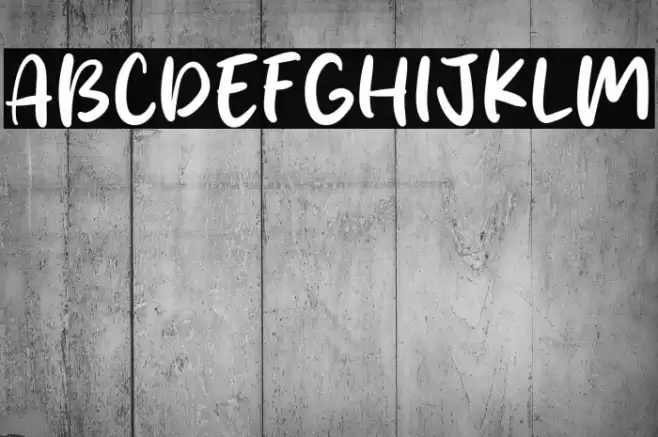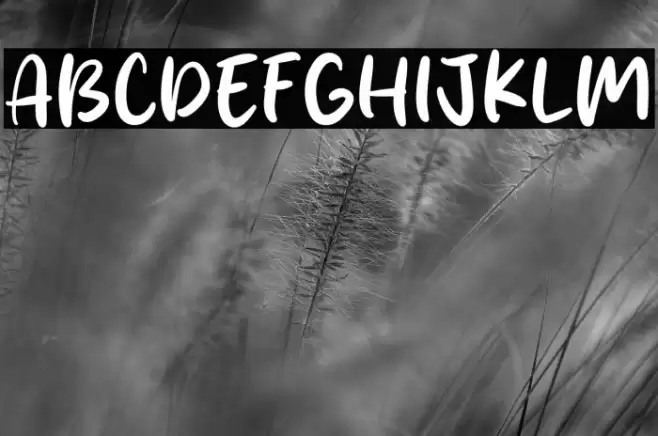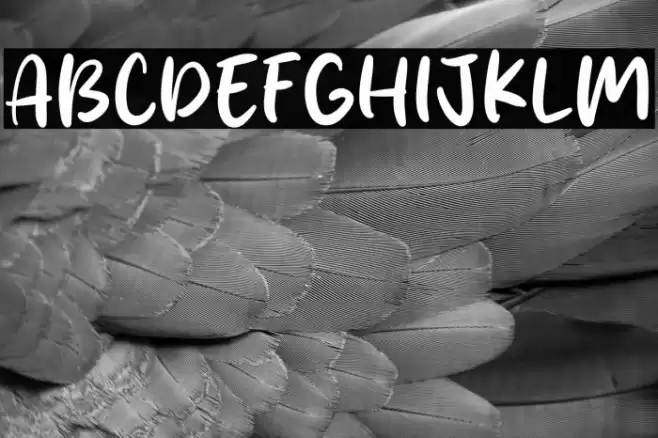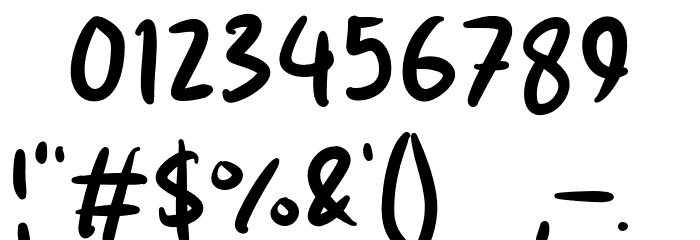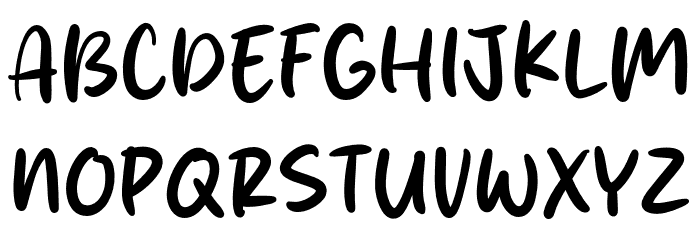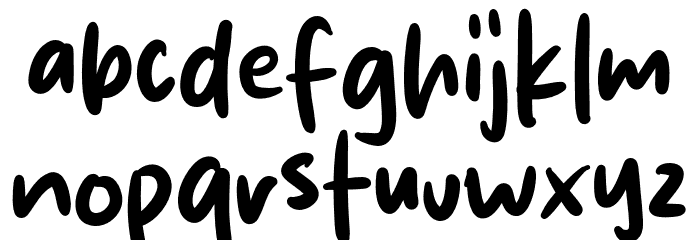
Matcha Vibes Font
Matcha Vibes Description
A playful, casual handwritten font with rounded, slightly irregular strokes and a friendly, approachable appearance. The characters have a natural flow, mimicking marker or brush pen writing, with consistent weight and moderate spacing.
Casual handwritten font with rounded, playful strokes.
- Font: Matcha Vibes
- Proposed Projects: Greeting cards, social media graphics, informal branding, posters, children’s books.
- Category: Handwritten
- Overall Style: Playful, Casual, Modern
- Use Case: Headlines, Quotes, Informal branding, Social media posts
Matcha Vibes UPPERCASE
Matcha Vibes LOWERCASE
Matcha Vibes OTHER CHARS